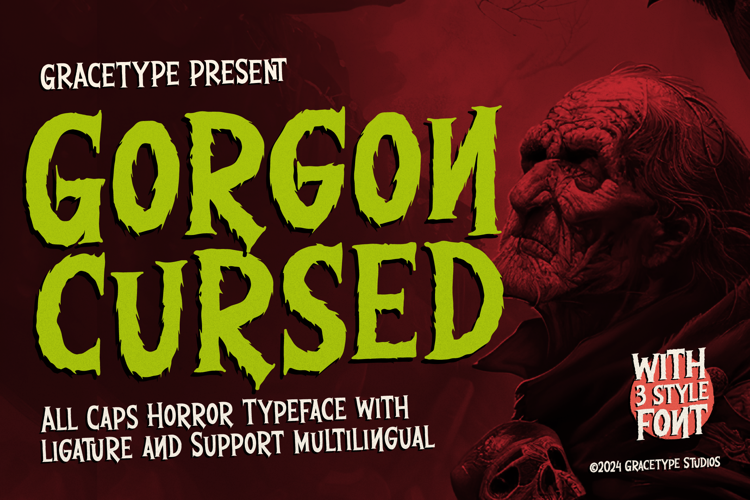
Gorgon Cursed Font
3 font family styles
Dripping Regular Style
Rough Regular Style
Gorgon Cursed | Horror Typeface is suitable for any projects such as: logos, branding projects, homeware designs, product packaging, mugs, quotes, posters, shopping bags, t-shirts, book covers, name card, invitation cards, greeting cards, label, photography, watermark, special events, and all your other lovely projects that need a Horror taste.